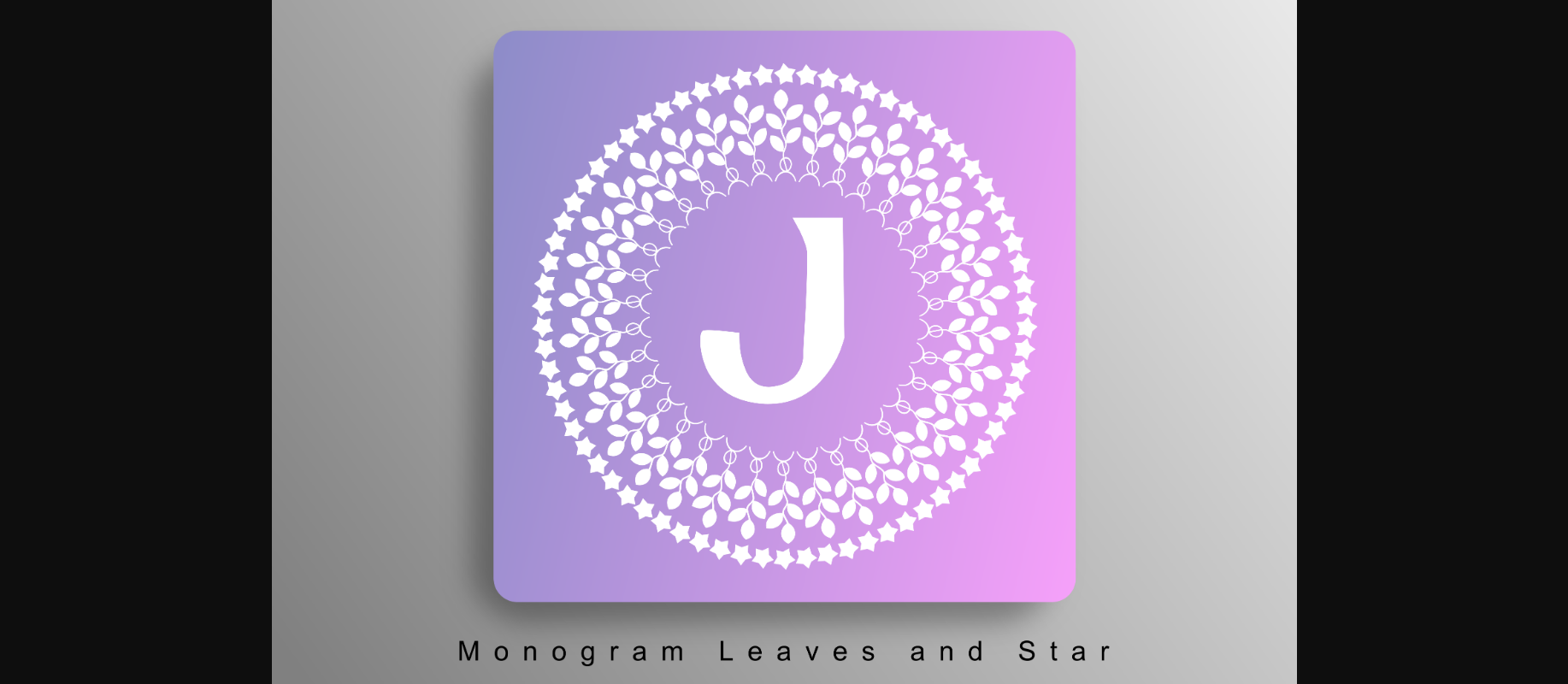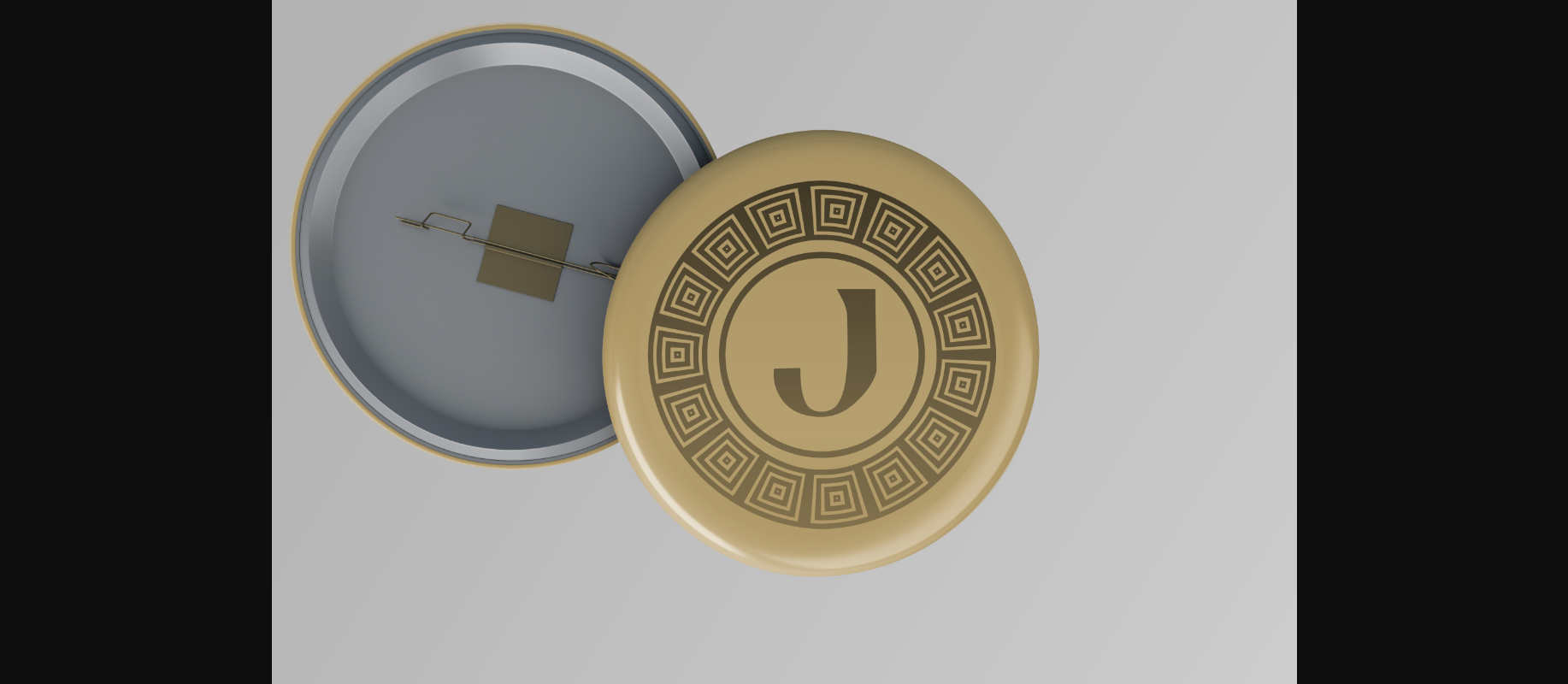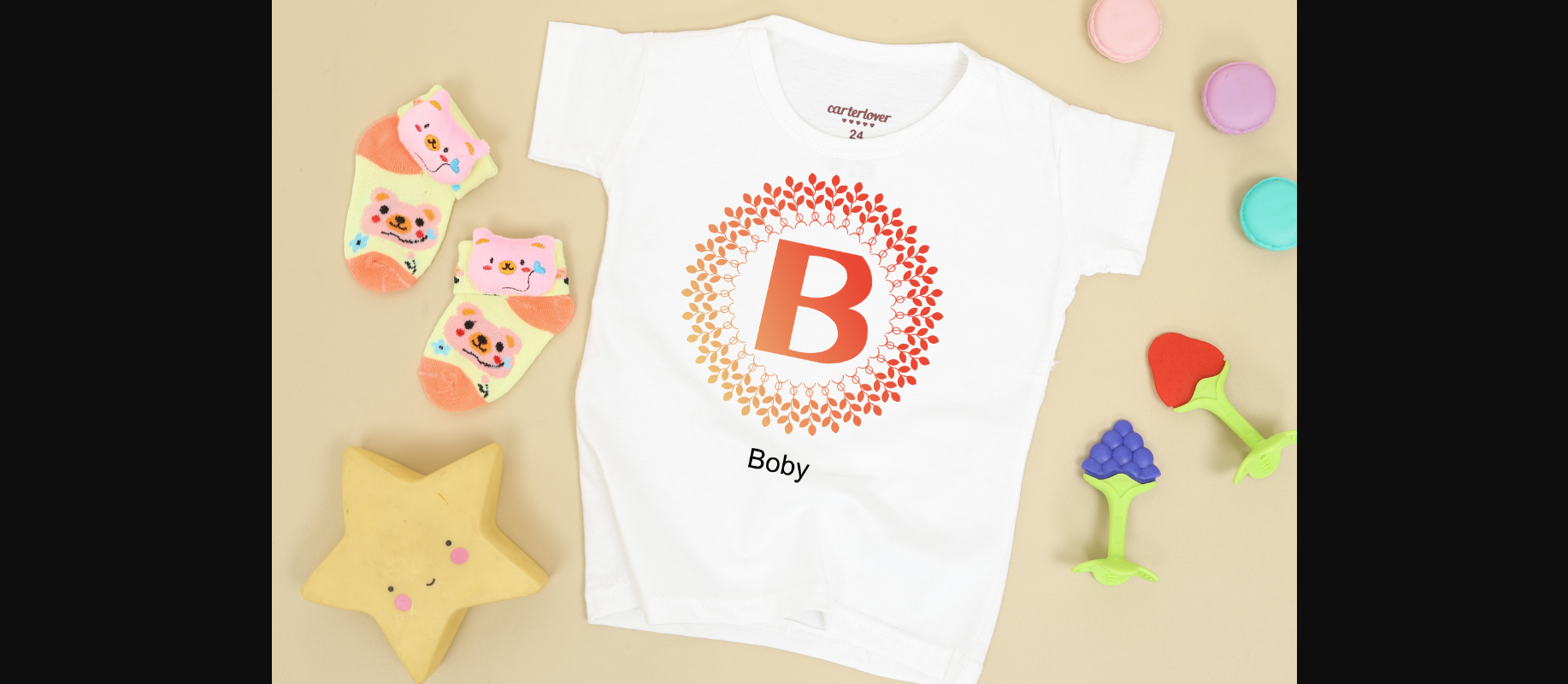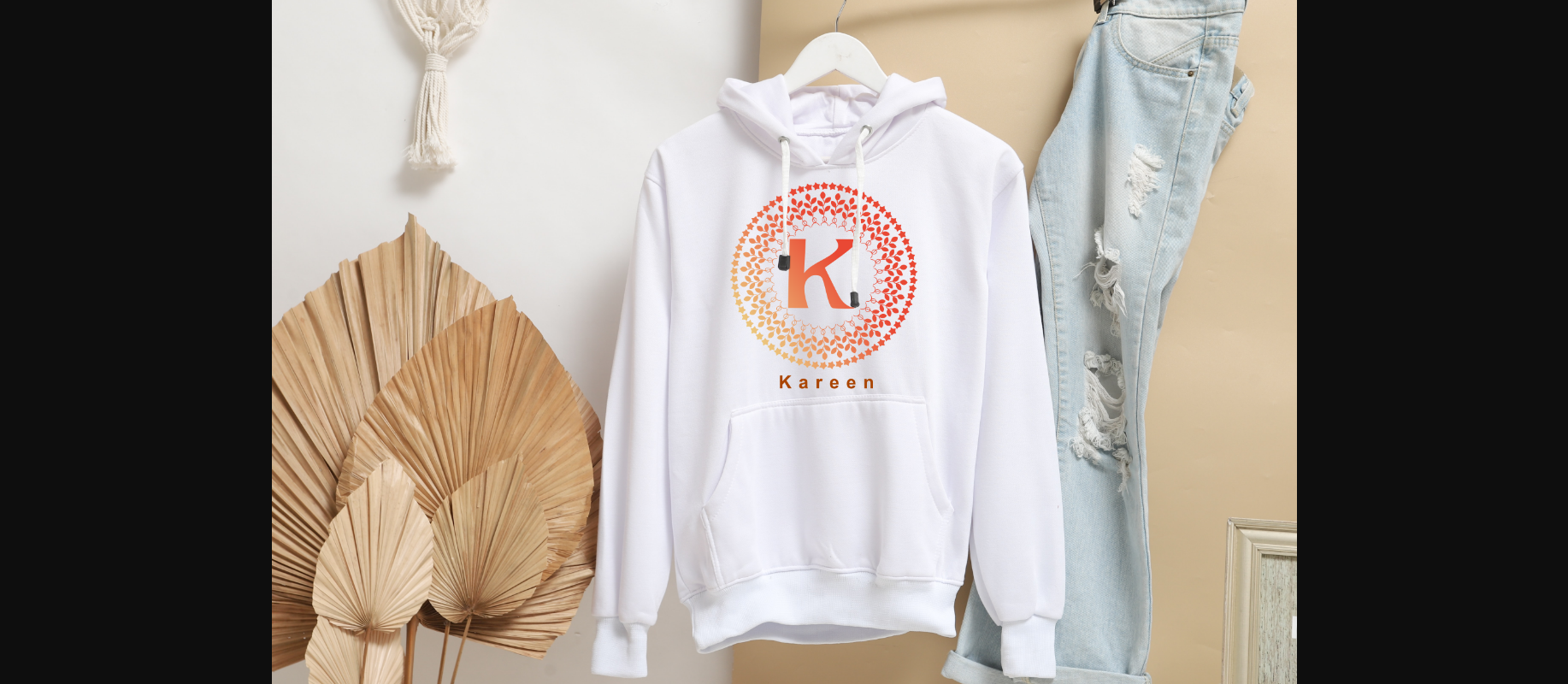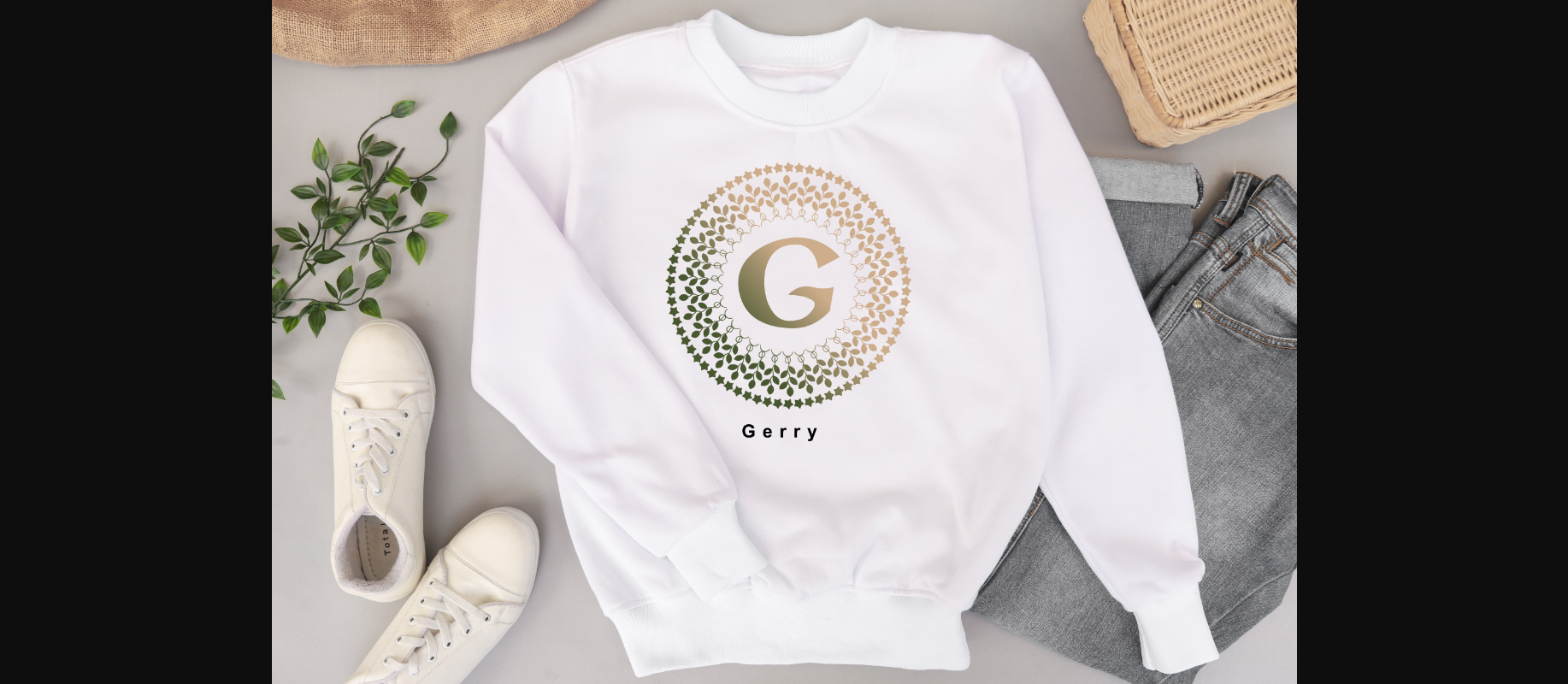
About Monogram Leaves and Stars Font
Monogram Leaves and Stars is a dainty and unique decorative font. Add this lovely looking font to each of your love letters, wedding invitations or favorite design ideas, and you will be astounded by the outcome.